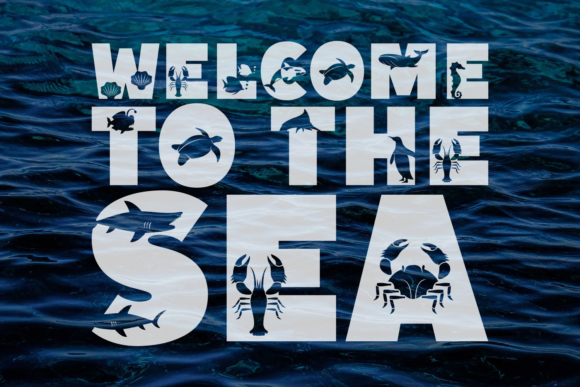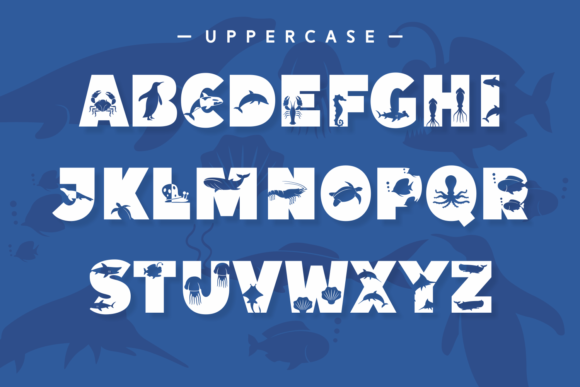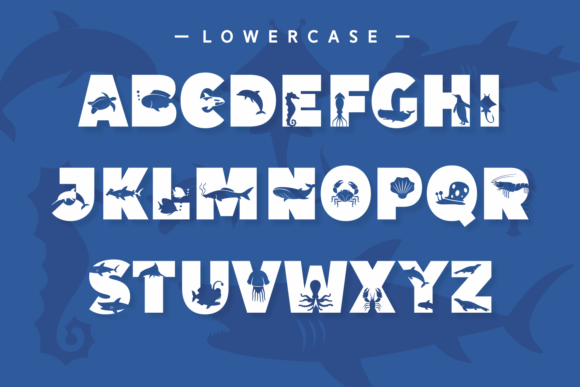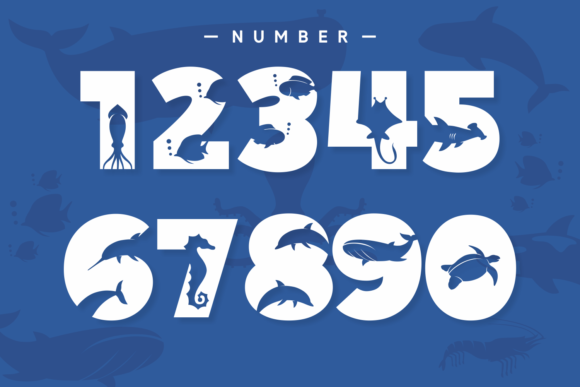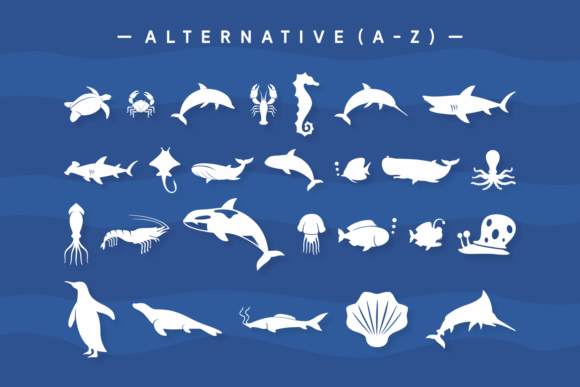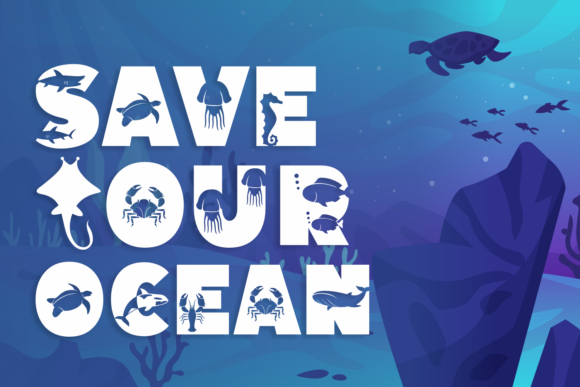
Introduction to Made Sea Font
Do you remember the first time you saw a font that made your design come alive? For me, it was a font with a fun, playful feel that added a splash of personality to a children’s activity project. That’s exactly what the Made Sea Font offers – a unique and authentic design experience that’s perfect for creative projects. With its transparent background and high-quality design, this font is a must-have for any designer looking to add a touch of whimsy to their work.
As a design resource, Made Sea Font is incredibly valuable, offering a wide range of glyphs and swashes that can be easily accessed with PUA encoding. Whether you’re working on a school project or a fun personal creative project, this font is sure to be a hit. And the best part? It’s available for free download, making it an accessible design resource for designers of all levels.
Key Features of Made Sea Font
- High-quality design: Made Sea Font is crafted with precision and care to deliver a unique and stylish look for your creative project.
- Transparent background: This font features a transparent background, allowing for seamless integration with any design or image.
- High-resolution design: Made Sea Font is designed at a high resolution, ensuring that it looks great in print and digital applications.
- Unique characteristics: The Made Sea Font features a unique blend of modern and vintage elements, making it perfect for creative projects that require a touch of elegance.
- Size: The font is available in a range of sizes, from 12pt to 72pt, making it suitable for a variety of design applications.
Honest Review: Made Sea Font
I recently stumbled upon the Made Sea Font and was excited to dive in and see what it had to offer. As a designer, I’m always on the lookout for high-quality design resources that can help me bring my creative projects to life.
Here are some things that I think work well with Made Sea Font: ✨ It has a beautiful, modern design that’s perfect for a variety of creative projects. ✨ It’s free to download, which is always a bonus. ✨ The font is available in several different weights and styles, making it easy to mix and match to suit your needs.
However, there are a few limitations to keep in mind: ⚠️ The font doesn’t have a transparent background option, which can make it a bit tricky to use on certain types of backgrounds. ⚠️ The font files are only available in a few different formats, so you may need to convert them if you need something specific.
Overall, I was really impressed with Made Sea Font and would definitely recommend it to anyone looking for a high-quality design resource. Whether you’re working on a personal project or a commercial one, this font is sure to help you create something amazing.
Tips for Getting the Most Out of Made Sea Font
Made Sea Font is a high-quality font that can add a touch of elegance to any design project. To get the most out of it, use it in conjunction with other design resources, such as images and graphics. You can also experiment with different font sizes and styles to create a unique look.
Made Sea Font is perfect for use in creative projects, such as wedding invitations, business cards, and social media graphics. It’s also a great design resource for creating a free download or a paid template. With its transparent background, you can easily layer it over images or other design elements to create a visually appealing design.